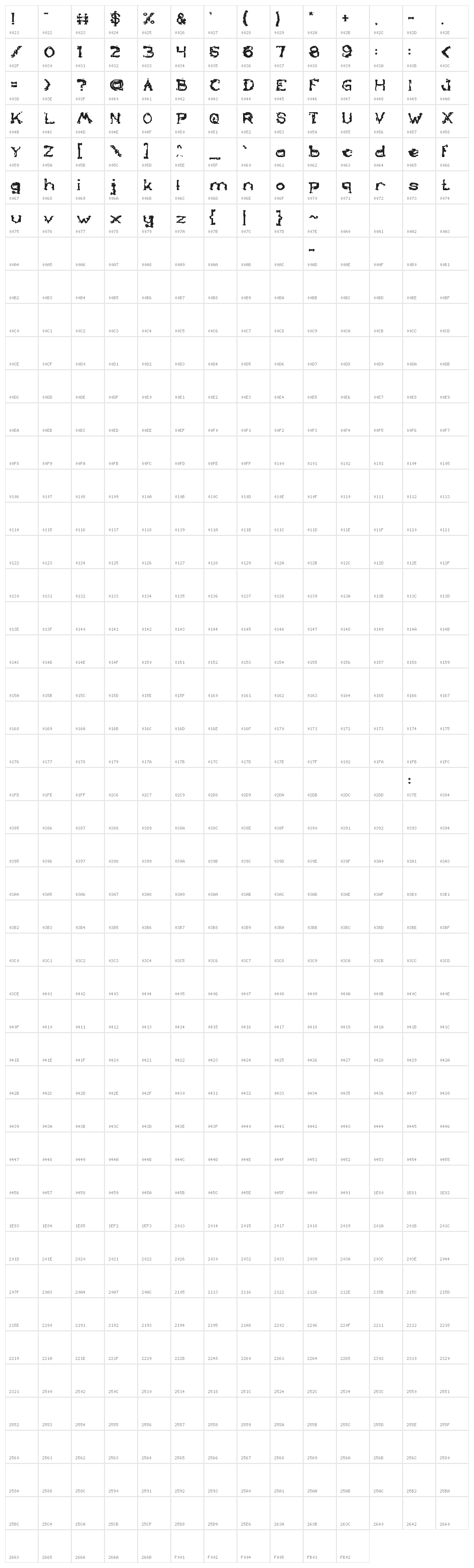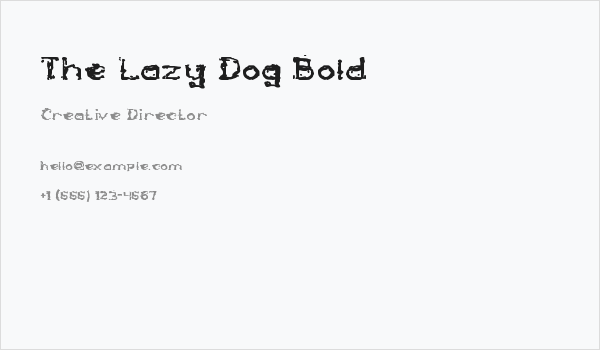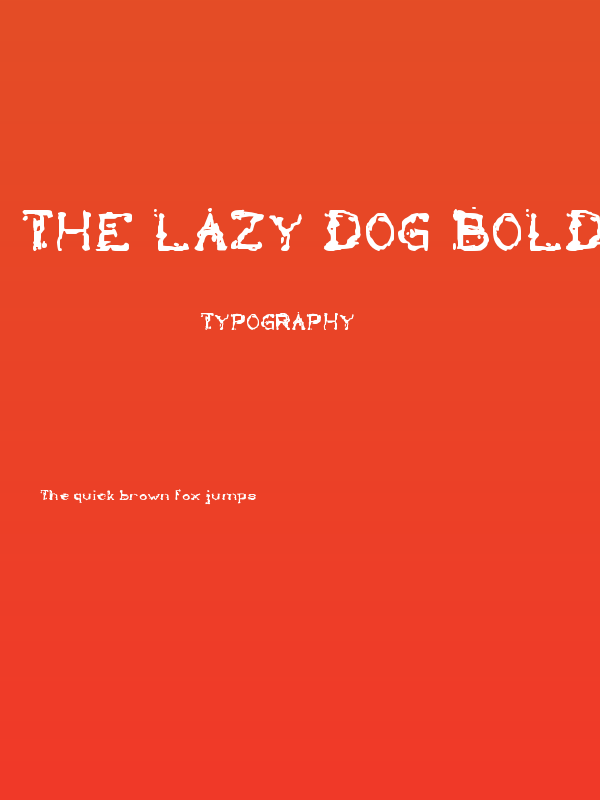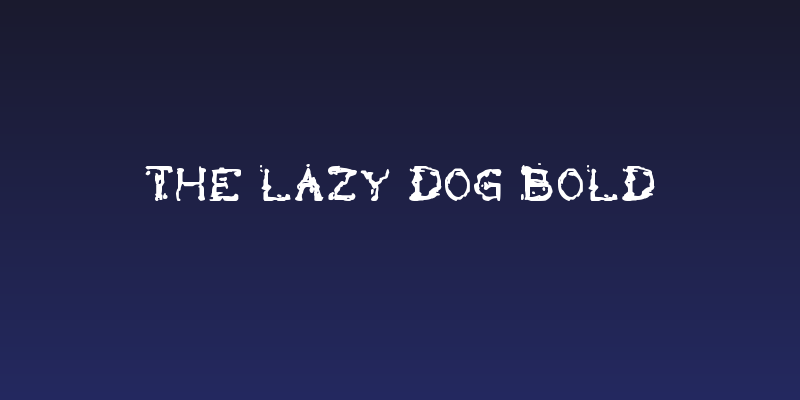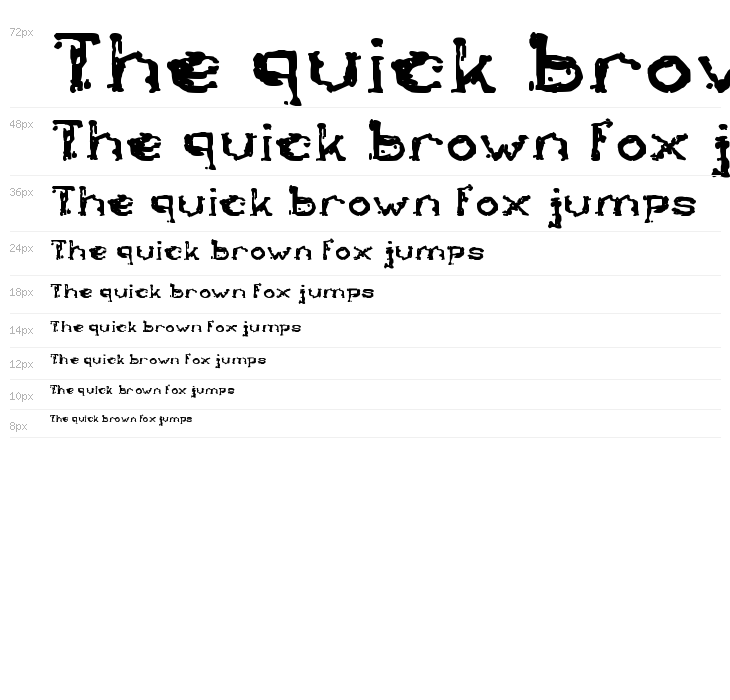
The Lazy Dog Bold Font
The Lazy Dog Bold Description
This font exhibits a rugged, distressed appearance with irregular edges and a bold presence. Each character appears as if it has been stamped or printed with a rough texture, giving it a unique and eye-catching style. The uppercase and lowercase letters maintain a consistent height, while the numbers and special characters follow the same distressed theme. The overall look is bold and impactful, making it suitable for designs that require a strong visual statement. The font's uneven texture adds a sense of movement and dynamism, making it ideal for creative projects that aim to stand out.
| Proposed Projects | Ideal for posters, album covers, branding for edgy or alternative products, and any design needing a bold, textured look. |